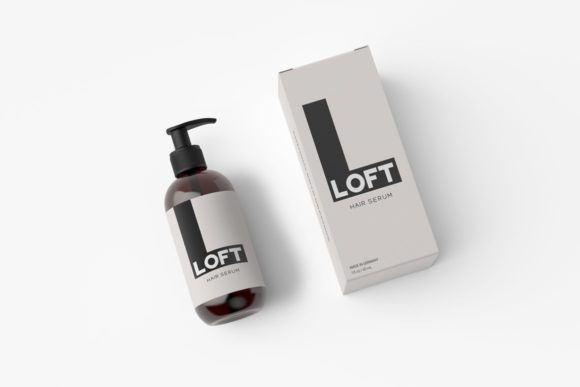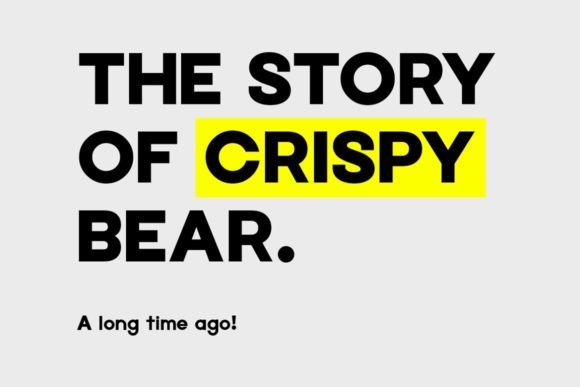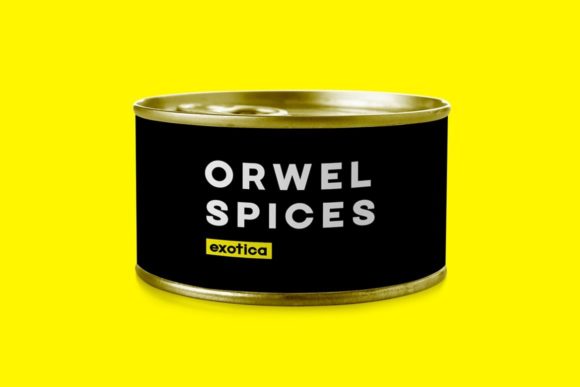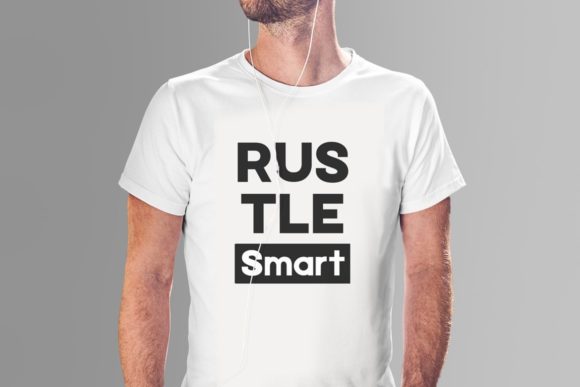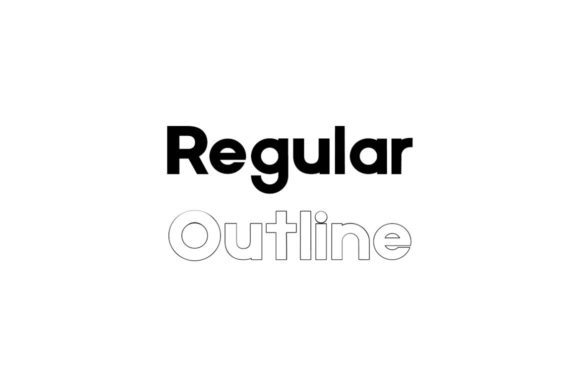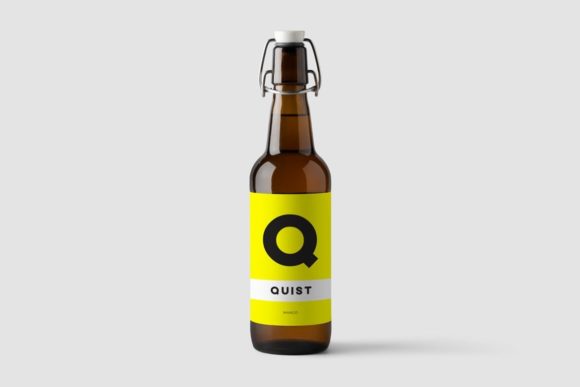
Introduction to Quart Font
Have you ever found yourself staring at a blank canvas, trying to come up with the perfect font to grab the attention of your audience? That’s where Quart Font comes in – a game-changing design resource that’s sure to elevate your creative project.
With its strong and bold aesthetic, Quart Font is perfect for headlines, big text, branding, logotypes, and display usage. Its unique style is sure to cut through the noise and leave a lasting impression on your viewers. Plus, with a transparent background, you can easily integrate it into your design without any distractions.
Key Features of Quart Font
- Transparent background option allows for seamless integration into various design elements and backgrounds.
- Features a unique, modern design with clean lines and elegant typography, perfect for various creative projects.
- Available in various font sizes, including small caps, titling, and caption styles, to cater to different design needs.
- Resolution-independent, ensuring crisp and clear text display regardless of the screen resolution or device.
Honest Review: Quart Font
I recently stumbled upon Quart Font while searching for a design resource for a creative project, and I must say it’s been a game-changer. The font is free to download, which is a huge plus for those of us on a budget.
One of the things that works well about Quart Font is its clean and modern aesthetic. It’s perfect for projects that require a touch of sophistication and elegance. I particularly love its versatility – it can be used for both body text and headings, making it a great all-around choice.
That being said, there are a few limitations to keep in mind. The font only comes in a few different weights, which may limit its use in certain situations. Additionally, the font is not as extensive as some of the more premium options on the market.
Overall, I’m thoroughly impressed with Quart Font. It’s a great addition to any designer’s toolkit, and its high-quality design and free download make it an excellent value. ⚠️ Just be aware of its limitations, and you’ll be good to go!